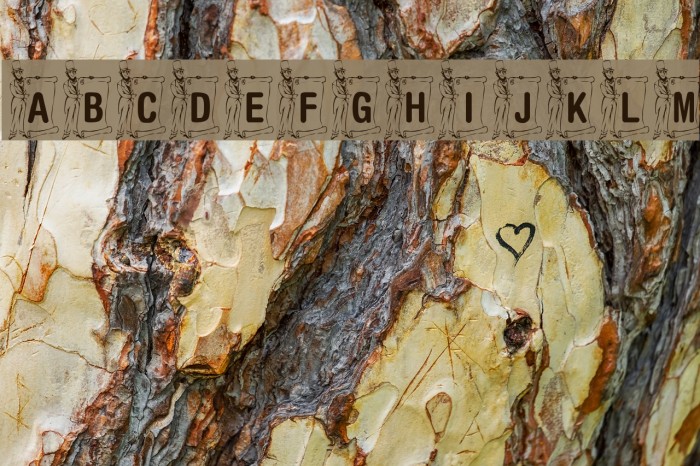
KR Lincoln Font
This font features a unique and decorative style where each letter is framed by an illustration of a historical figure holding a scroll. The letters themselves are bold and sans-serif, providing a strong contrast to the intricate details of the surrounding artwork. The combination of the bold lettering and the detailed illustrations creates a striking visual impact, making it ideal for projects that require a historical or vintage aesthetic. The font's design is consistent across all characters, maintaining a cohesive look while allowing each letter to stand out within its ornate frame.
A decorative font with bold letters framed by historical figure illustrations.
- Font: KR Lincoln
- Proposed Projects: Ideal for historical-themed posters, vintage book covers, and decorative signage.
- Overall Style: Vintage